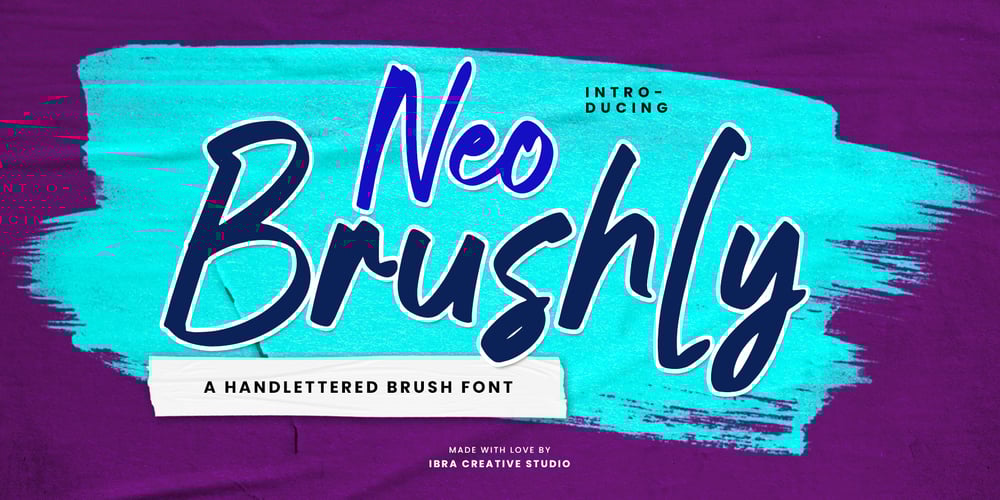
Neo Brushly Font Family was designed by Roisatul Azizah and published by IbraCreative. Neo Brushly contains 1 styles and family package options. Neo Brushly is an enchanting handlettered brush font that encapsulates the artistry of free-flowing strokes and the warmth of handcrafted expression. With each character meticulously crafted, the font exudes a genuine, human touch, reminiscent of brush strokes on canvas. The letters dance dynamically, creating a harmonious rhythm that lends a unique, personalized flair to any project. Neo Brushly captures the essence of spontaneity, making it an ideal choice for designs that seek a balance between casual elegance and a hint of playful sophistication. The organic, brush-inspired design imparts a sense of authenticity, making Neo Brushly an inviting and versatile choice for a wide range of creative endeavors, from branding to invitations, infusing a touch of handmade charm into every typographic creation.